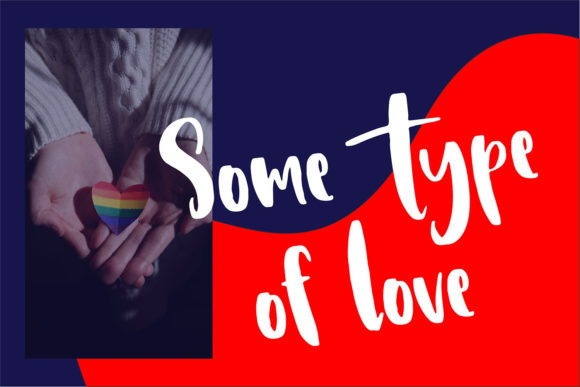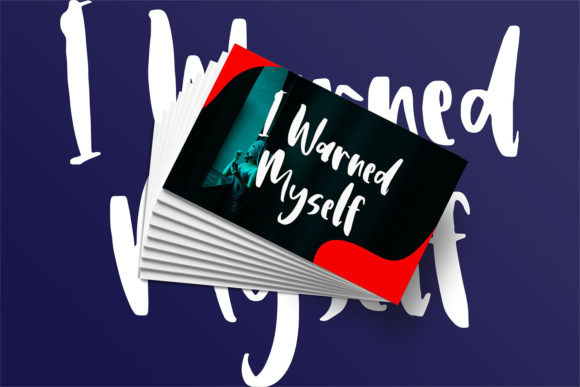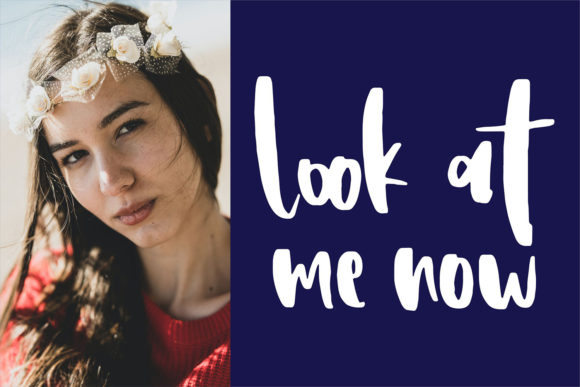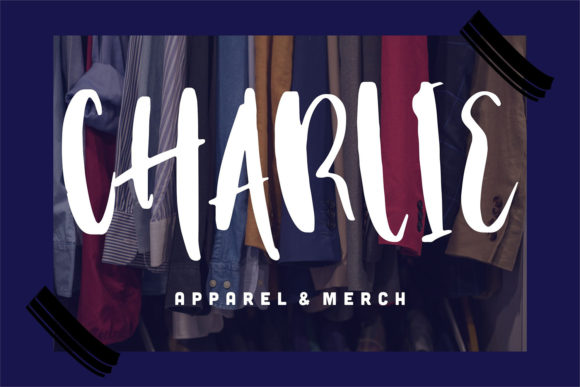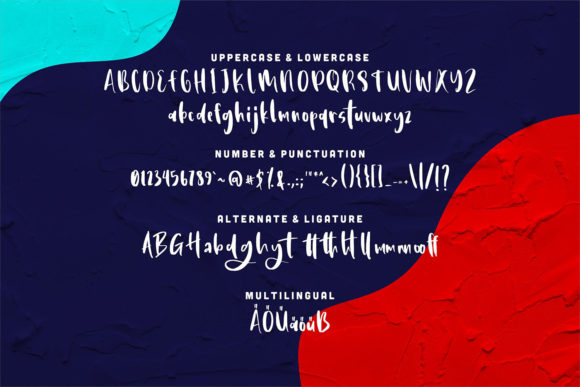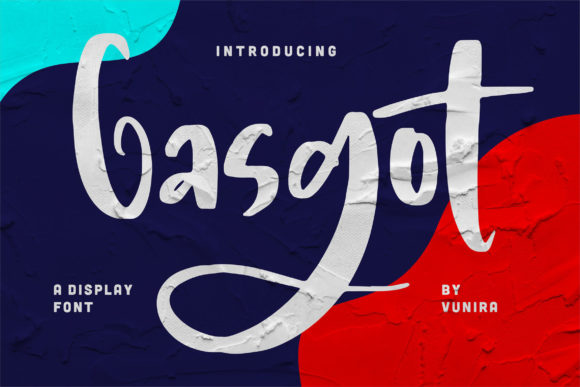
Introducing Gasgot Font: The Ultimate Casual and Bold Handwritten Font
Are you tired of using the same old fonts for your design projects? Look no further! Gasgot Font is here to revolutionize your typography with its unique blend of casualness and boldness. This stunning handwritten font is specifically crafted to give your headlines and logotype projects a stylish touch that’s sure to grab attention.
The Characteristics of Gasgot Font
Gasgot Font boasts a strong, confident, and dynamic personality that’s perfect for designers and crafters looking to add a touch of nostalgia to their work. This font reads as bold and eye-catching, making it ideal for headlines, logotypes, and any other design project that requires a statement piece. With Gasgot Font, you can add tons of character to your designs and make them truly unforgettable.
What Makes Gasgot Font So Special?
So, what sets Gasgot Font apart from other fonts on the market? Here are just a few reasons why this font is a cut above the rest:
- Unique Handwritten Style: Gasgot Font features a one-of-a-kind handwritten style that’s both casual and bold. This font is perfect for designers who want to add a personal touch to their work.
- Highly Versatile: Whether you’re working on a logo, headline, or any other design project, Gasgot Font is the perfect choice. This font is highly versatile and can be used in a variety of contexts.
- Nostalgic Character: Gasgot Font has a certain nostalgic charm that’s hard to find in modern fonts. This font is perfect for designers who want to add a touch of vintage flair to their work.
How to Use Gasgot Font in Your Design Projects
Using Gasgot Font in your design projects is easy! Here are a few tips to get you started:
- Pair it with Other Fonts: Gasgot Font pairs perfectly with other fonts, especially sans-serif fonts. Try pairing it with a clean and simple font to create a stunning contrast.
- Use it for Headlines and Logotypes: Gasgot Font is perfect for headlines and logotypes. Use it to add a bold and eye-catching touch to your designs.
- Experiment with Different Colors: Gasgot Font looks great in a variety of colors. Experiment with different colors to find the perfect one for your design project.
Why Designers and Crafters Love Gasgot Font
Designers and crafters love Gasgot Font for a variety of reasons. Here are just a few:
- Easy to Read: Despite its bold and casual style, Gasgot Font is easy to read. This font is perfect for designers who want to create stunning designs that are also legible.
- Highly Customizable: Gasgot Font is highly customizable, making it perfect for designers who want to add a personal touch to their work.
- Unique and Memorable: Gasgot Font is a unique and memorable font that’s sure to make your designs stand out. This font is perfect for designers who want to create stunning and unforgettable designs.
In conclusion, Gasgot Font is a stunning handwritten font that’s perfect for designers and crafters looking to add a touch of style and character to their work. With its unique blend of casualness and boldness, this font is sure to grab attention and make your designs truly unforgettable. Whether you’re working on a logo, headline, or any other design project, Gasgot Font is the perfect choice.